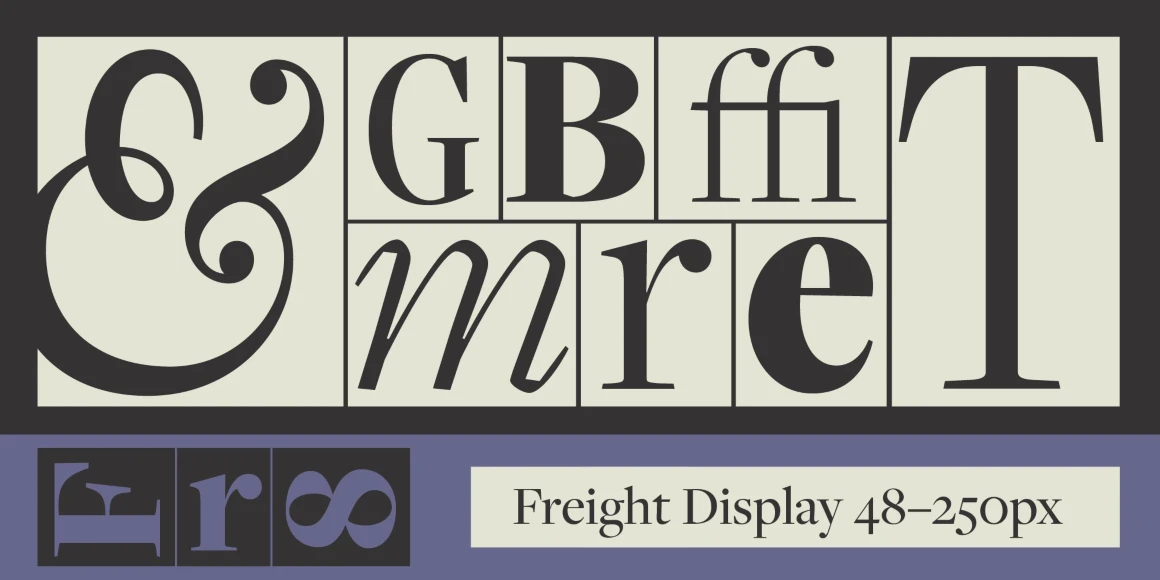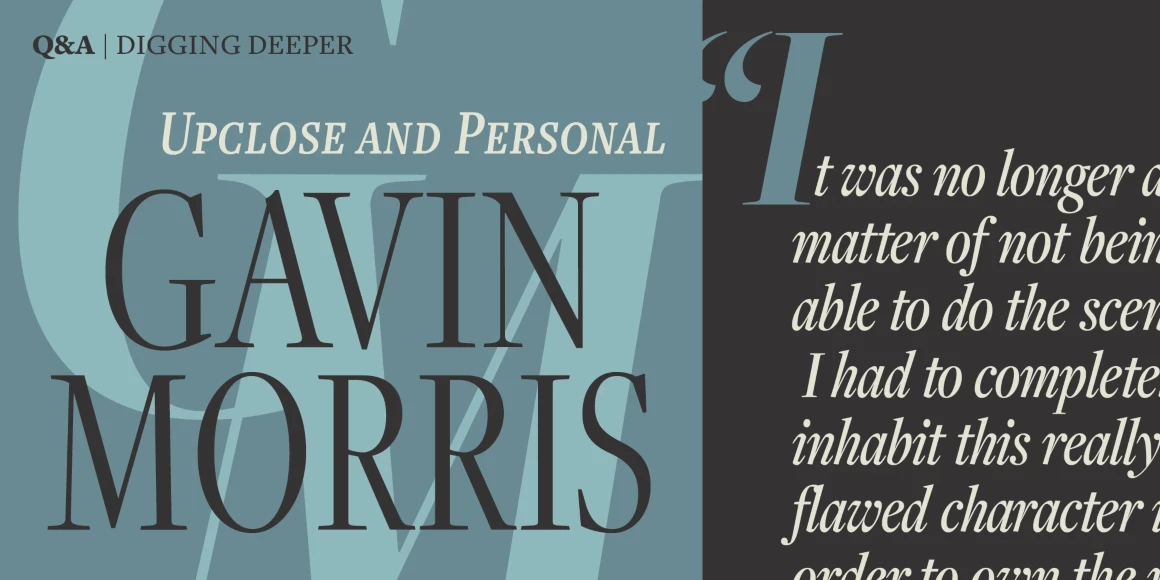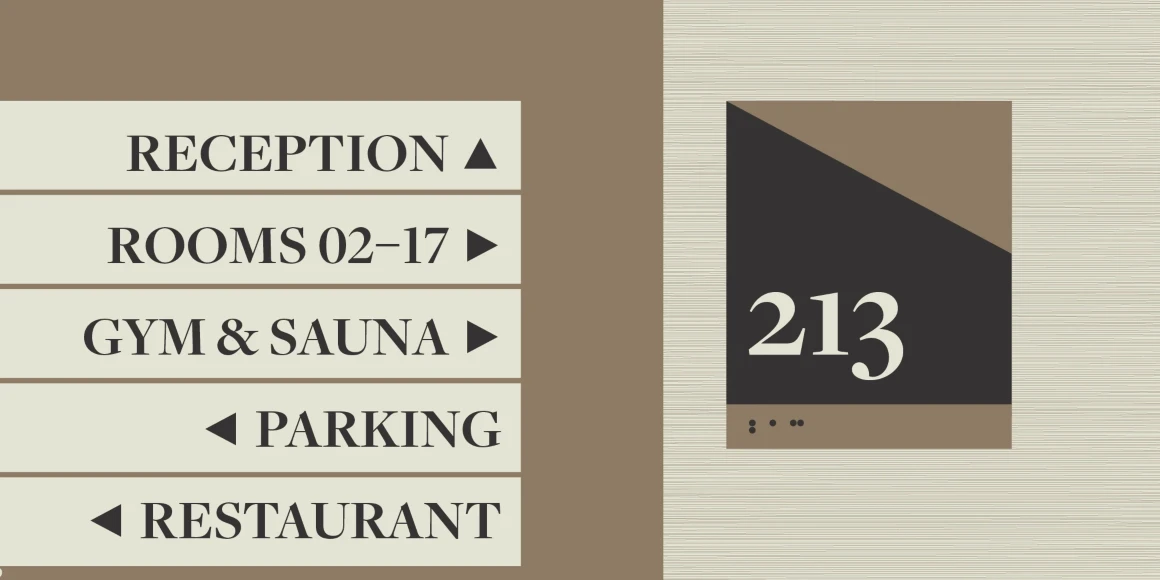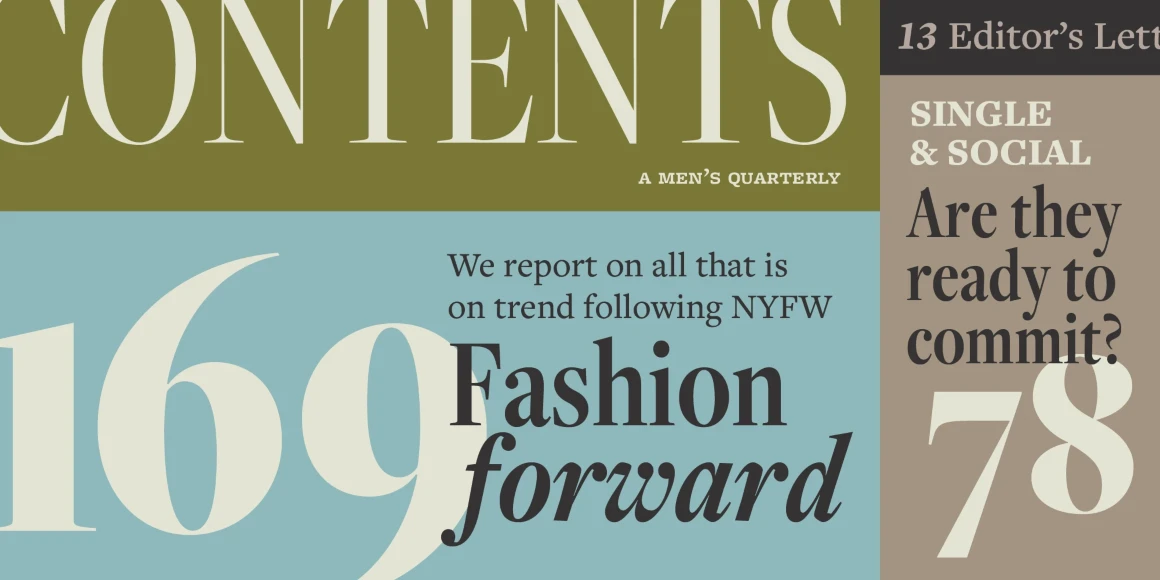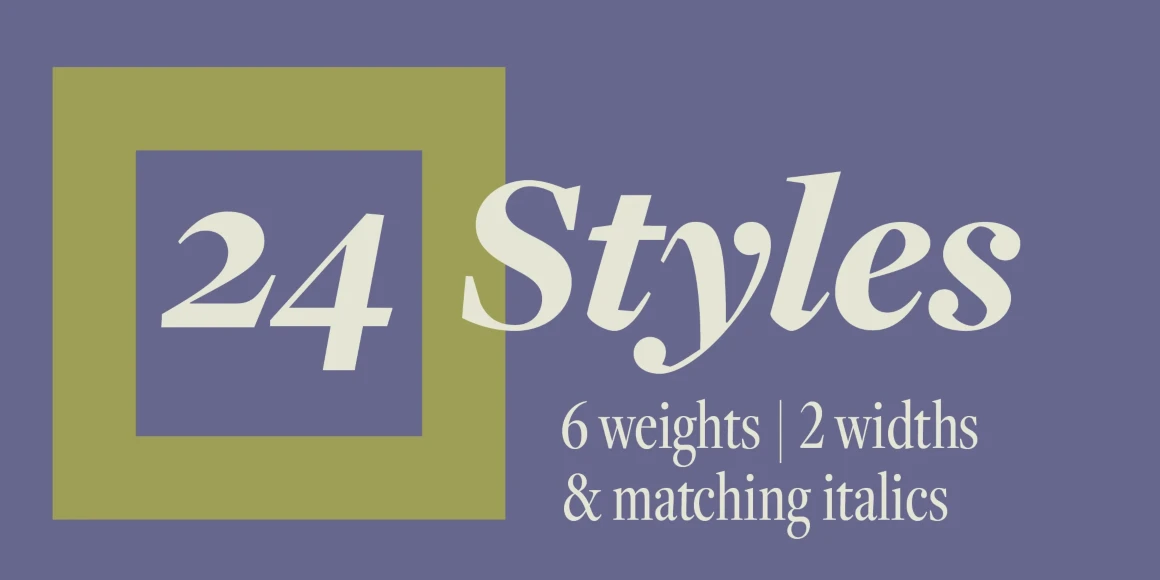
Freight Display
From Freight Collection
This is a collection of integrated typefaces ready to add unique style to any design project. What Joshua Darden started as a serif family inspired by the warmth and pragmatism found in 18th-century Dutch typefaces became The Freight Collection and now ranges across multiple weights, widths, and optical sizes — from Big, Display, Text, Micro, Macro, Neo, Round, and Sans — all of which include companion italics. That’s 192 fonts with the ability to be bold and daring just as easily as they can be quiet and unassuming.
Designed by Josh Darden